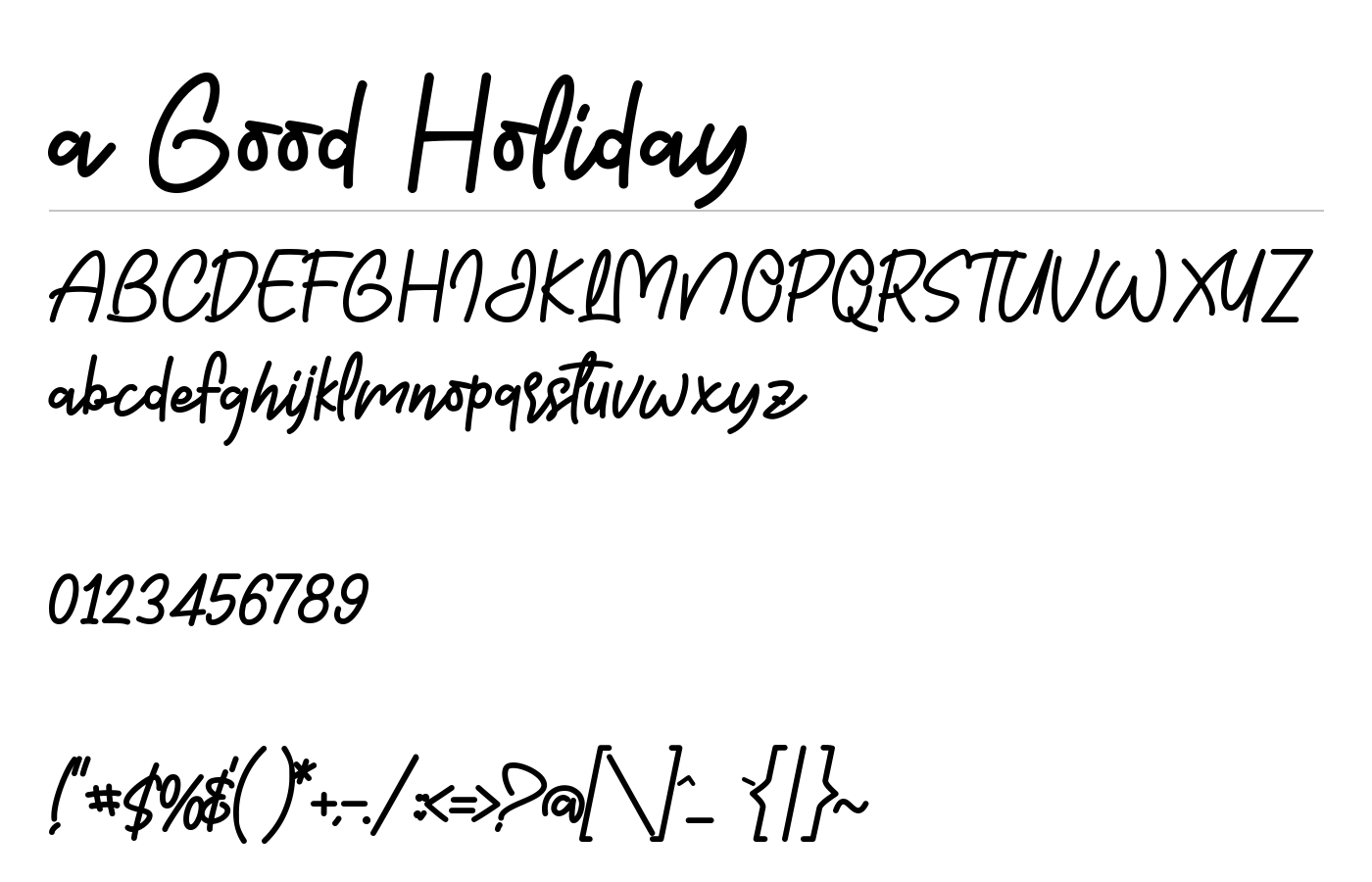
"A Good Holiday Font" is a playful and casual handwritten script featuring a light, flowing style with moderately tall, slightly irregular letterforms that add charm and personality. Its smooth, informal strokes and lively characters make it perfect for creative projects needing a friendly and approachable vibe, such as holiday cards, invitations, and branding that seeks a warm, personal touch. This font works well in headlines and short texts where a natural, handwritten feel enhances creativity and fun.
a Good Holiday Font
About a Good Holiday Font
| Font family | a Good Holiday Font |
| Designer | Mabhal Studio - Abdullah, Banten - Indonesia |